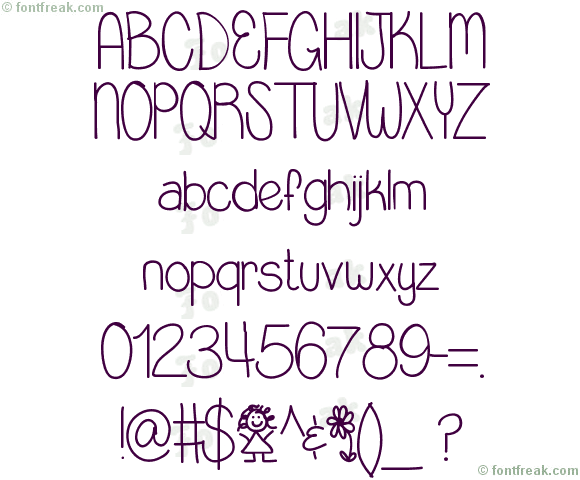
LittleMissPriss
LittleMissPriss is a charming handwritten font designed by Vanessa Bays, perfect for adding a whimsical touch to various projects. This display font features a playful, casual style that captures the essence of youthful creativity. Characterized by its smooth, flowing strokes and moderate contrast, LittleMissPriss exhibits a delightful balance between elegance and informality. The letters are well-spaced, providing a friendly and approachable aesthetic, while the subtle decorative elements give it a unique flair.
This font is particularly well-suited for a variety of applications. It works beautifully for wedding invitations, where its light-hearted nature can convey joy and celebration. Additionally, LittleMissPriss can elevate children's book covers, making them visually appealing to young readers. Its charm also makes it an excellent choice for greeting cards, where a personal touch is essential. Small business owners can utilize this font for branding purposes, especially in industries related to crafts, boutiques, or family-oriented services. Content creators will find it useful for social media graphics, where eye-catching typography is key to engaging an audience.
Targeting graphic designers, small business owners, and content creators alike, LittleMissPriss appeals to those who seek a distinctive font that stands out in a crowded market. This freeware font is accessible for anyone looking to enhance their projects without the constraints of licensing fees. The LittleMissPriss font free download offers a unique opportunity to incorporate a lively and enchanting typeface into your design toolkit. Its whimsical character and versatility make it a standout choice for anyone aiming to infuse their work with a playful spirit and artistic flair.